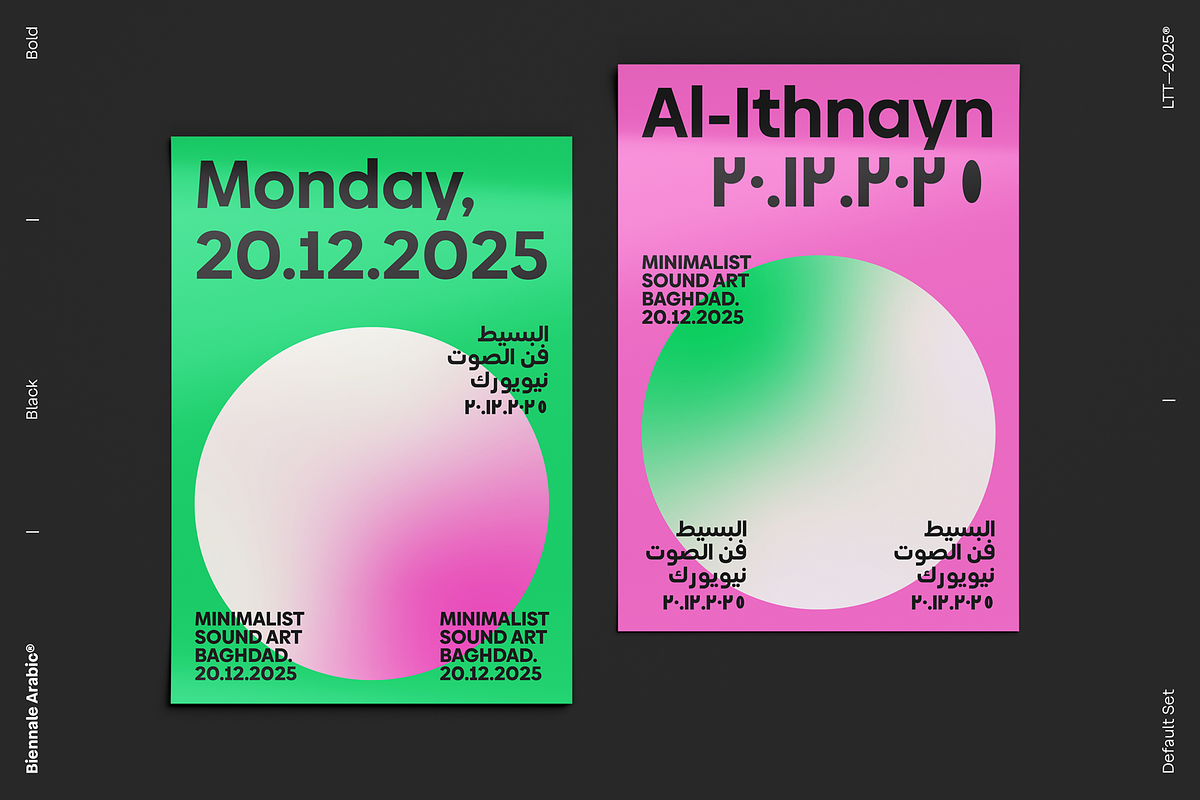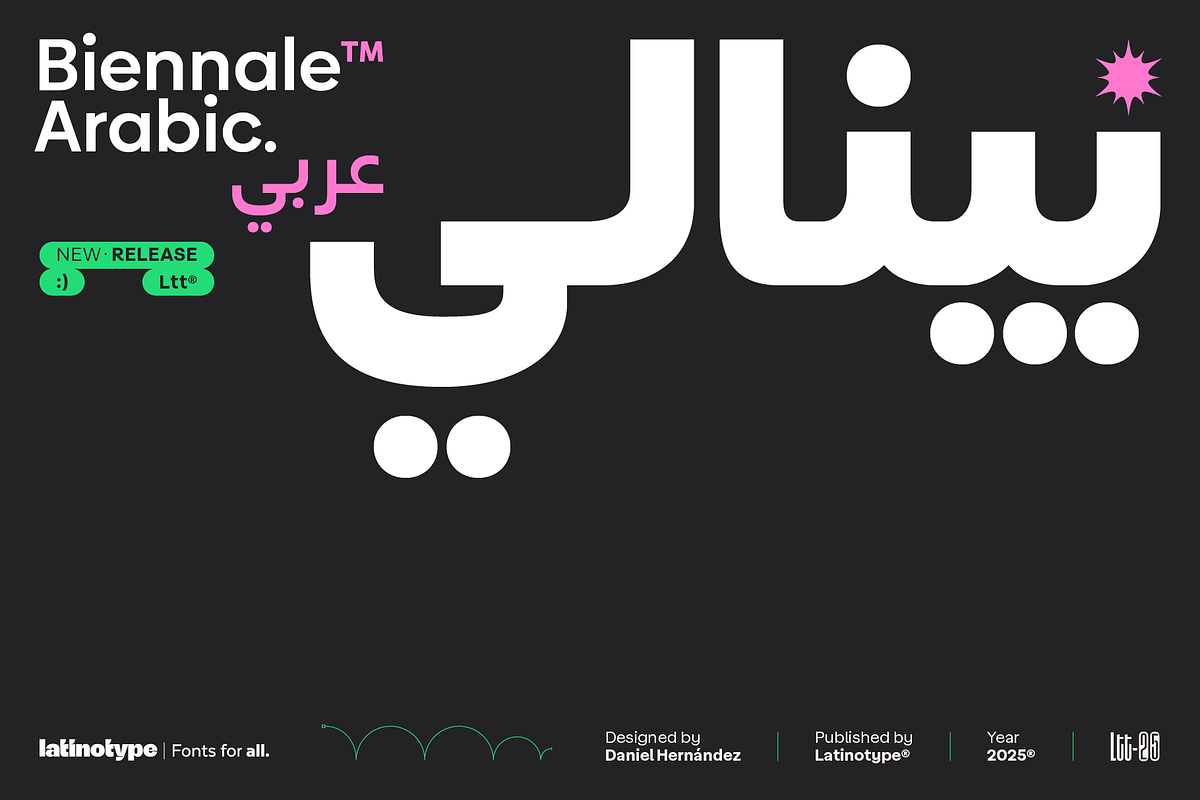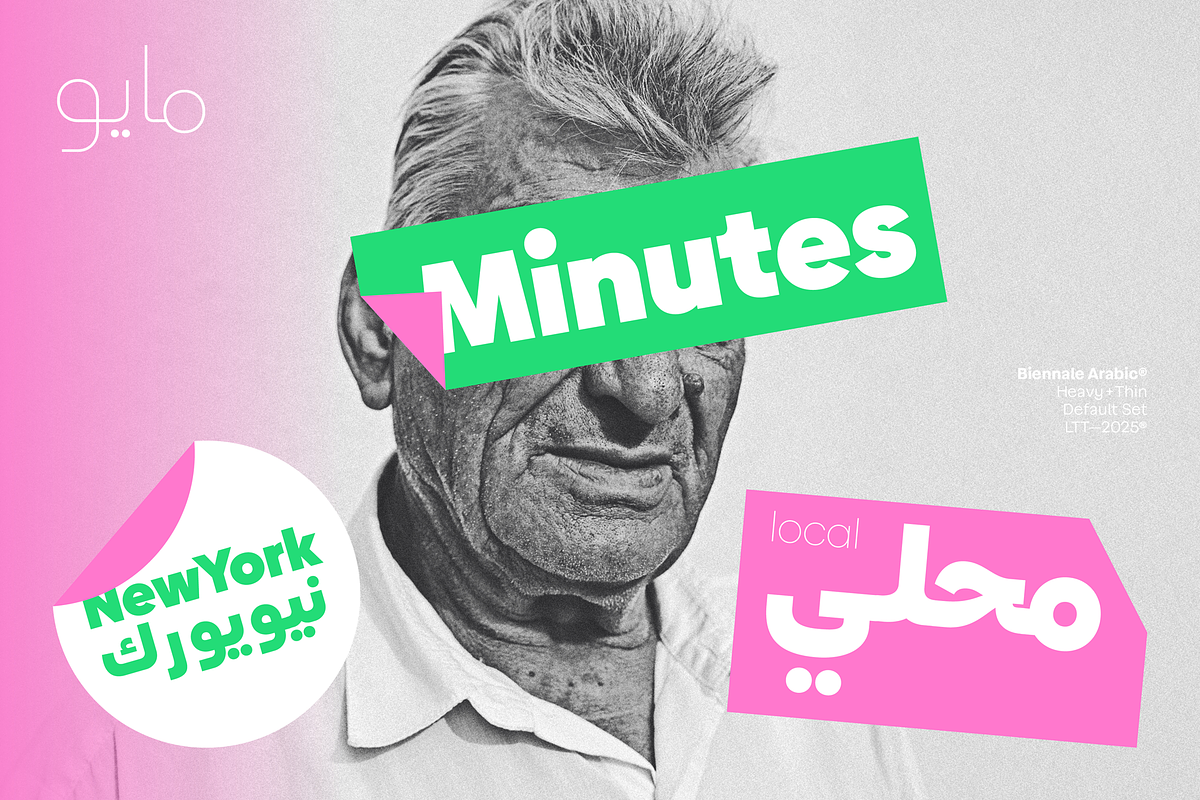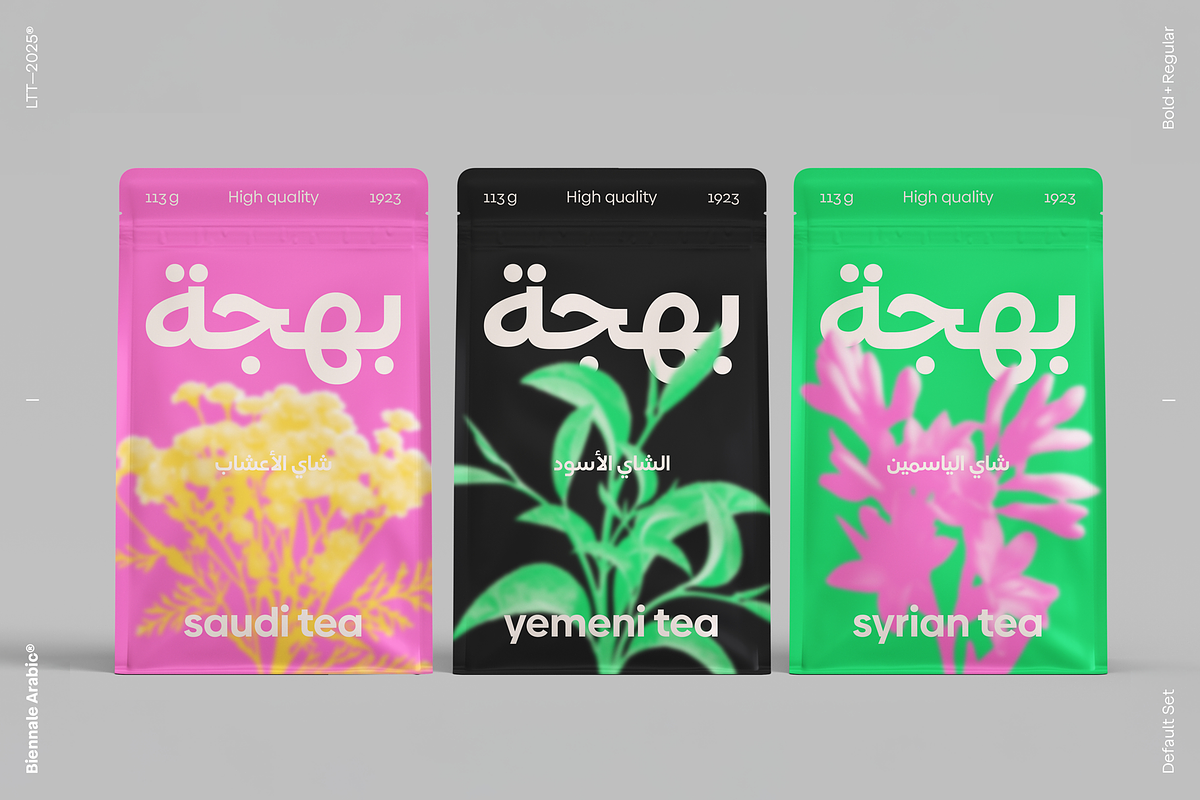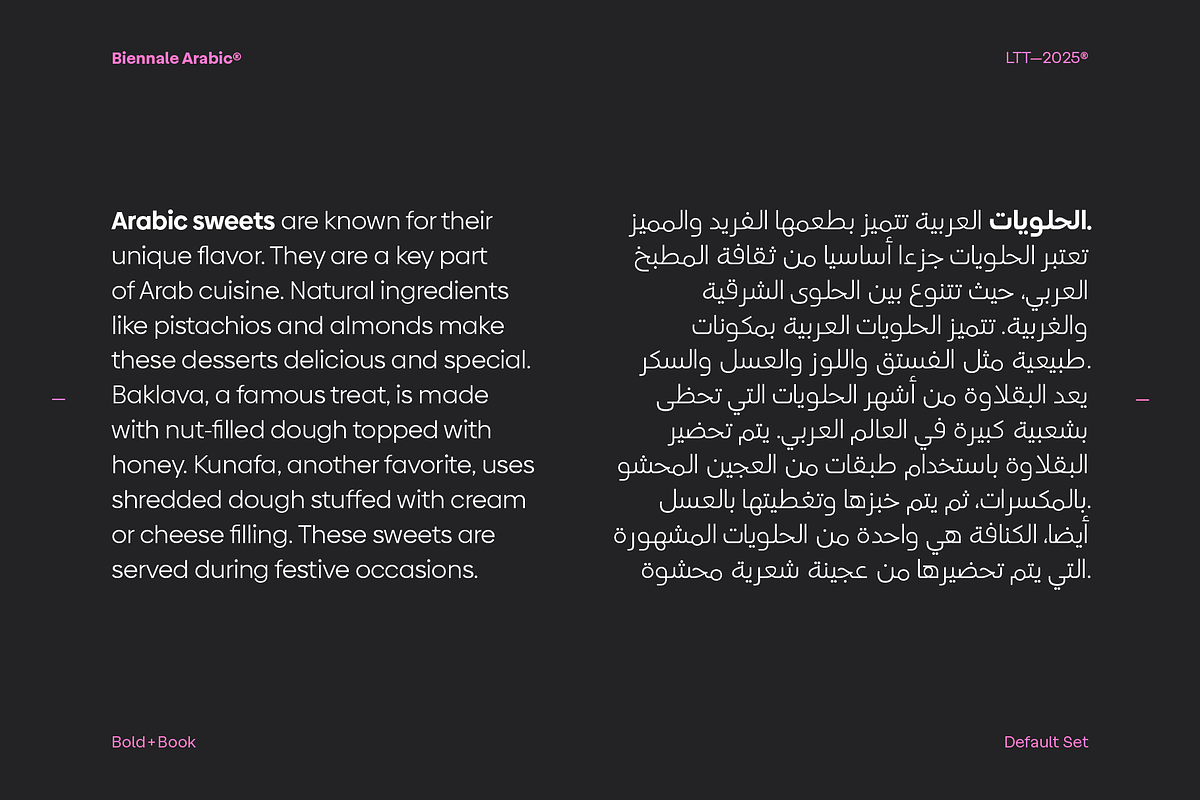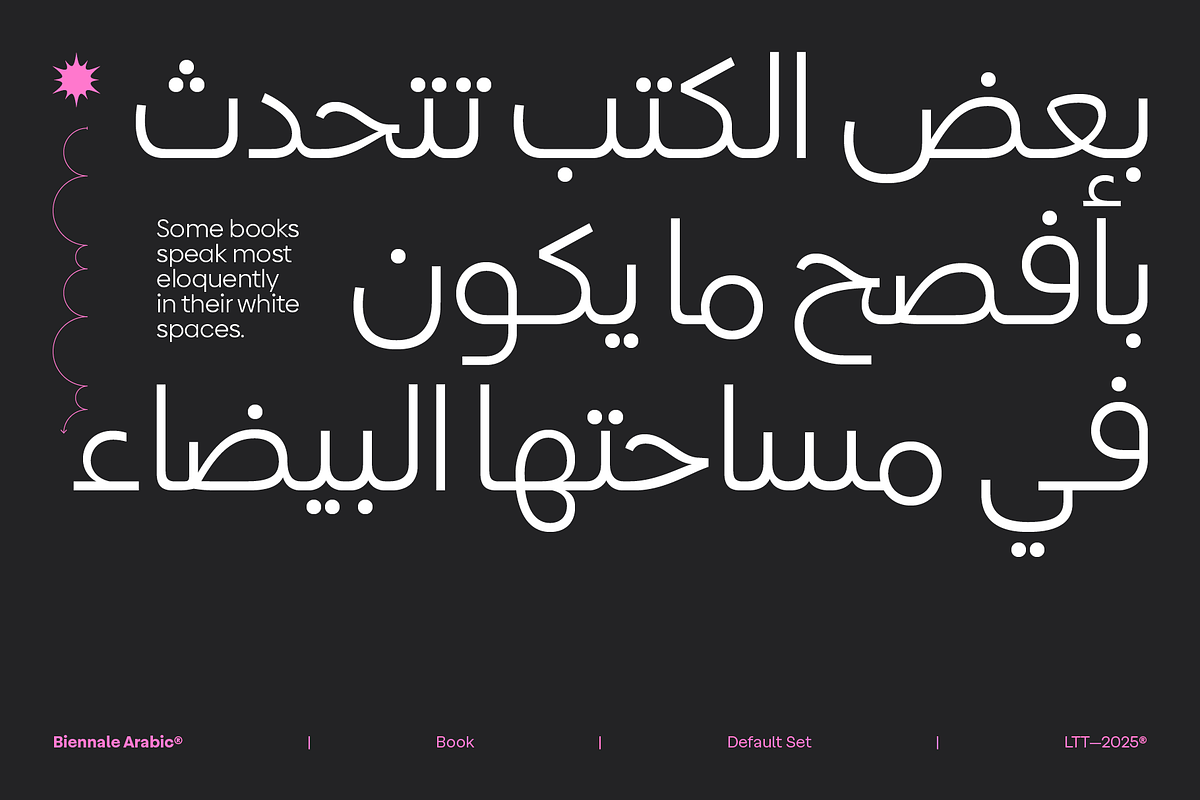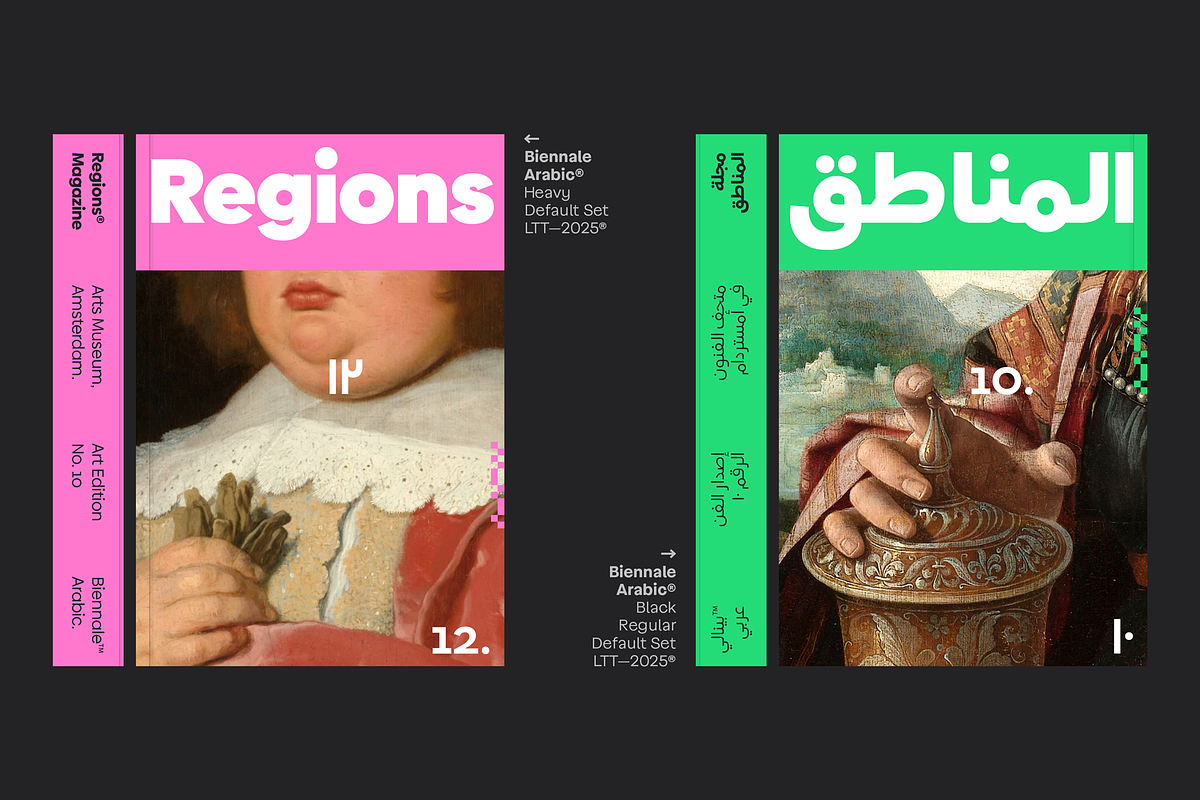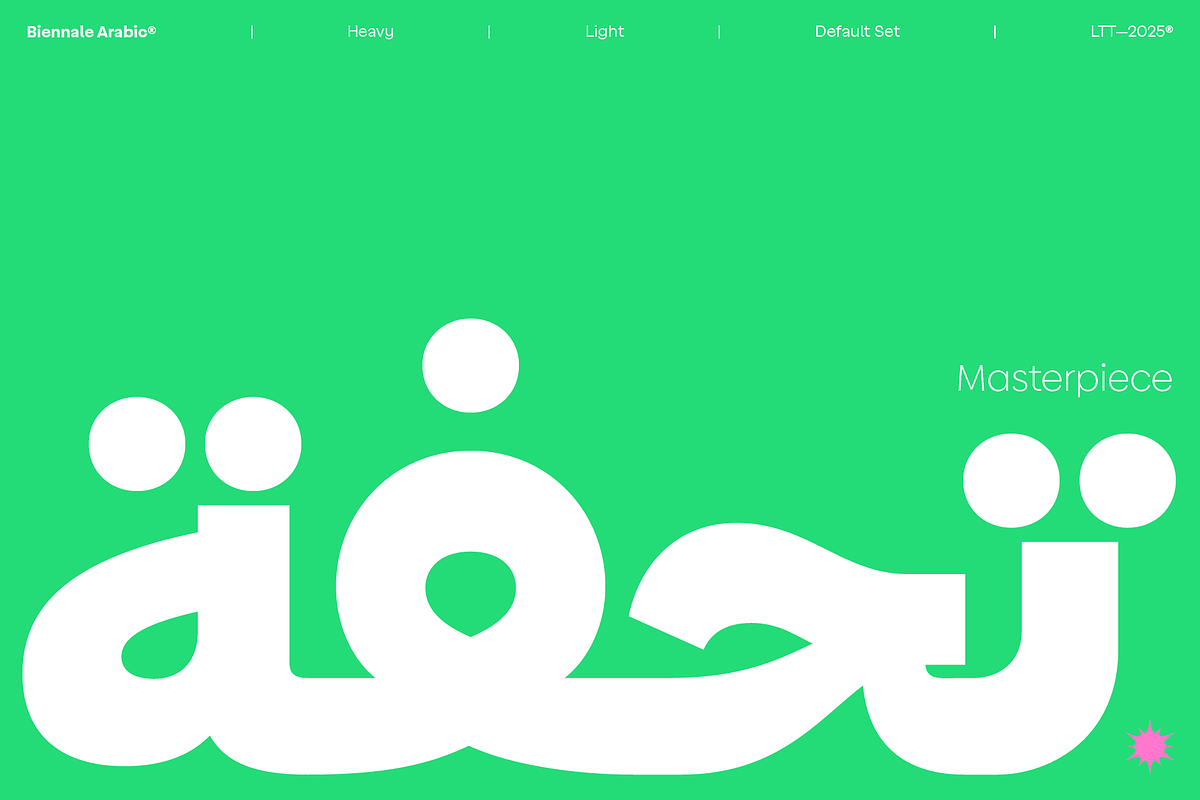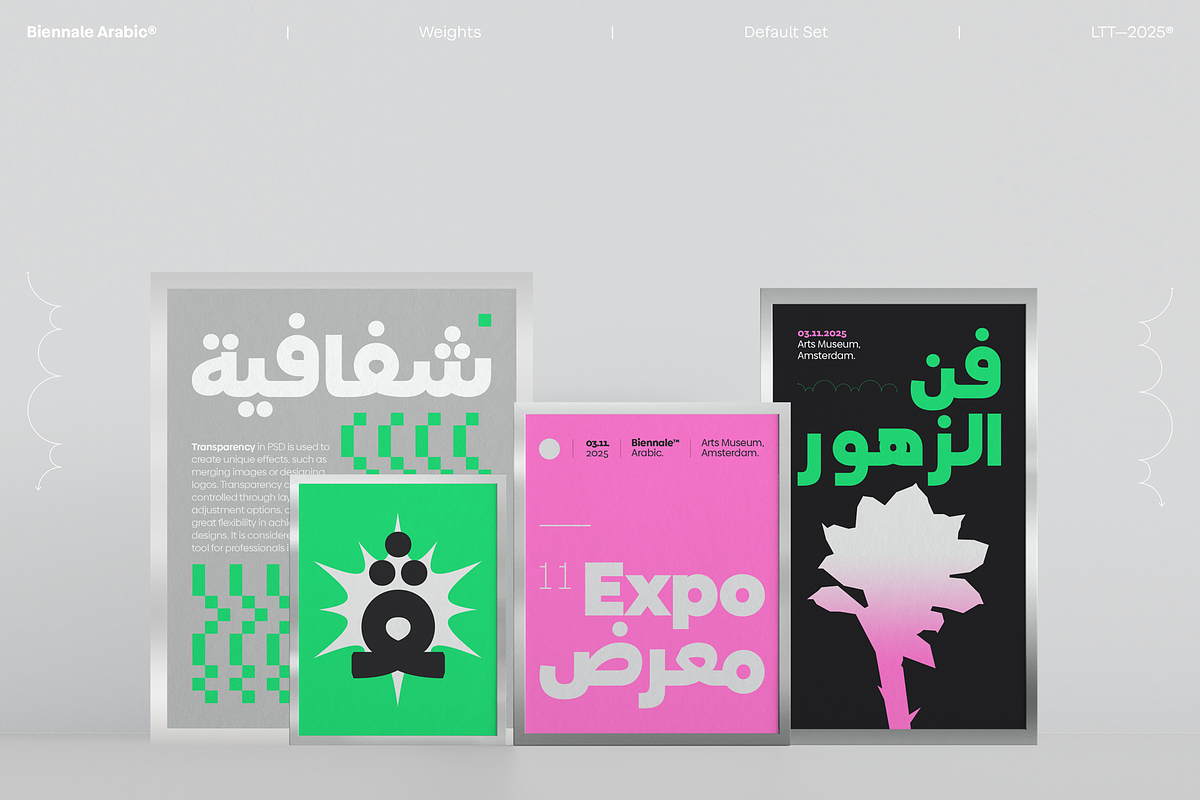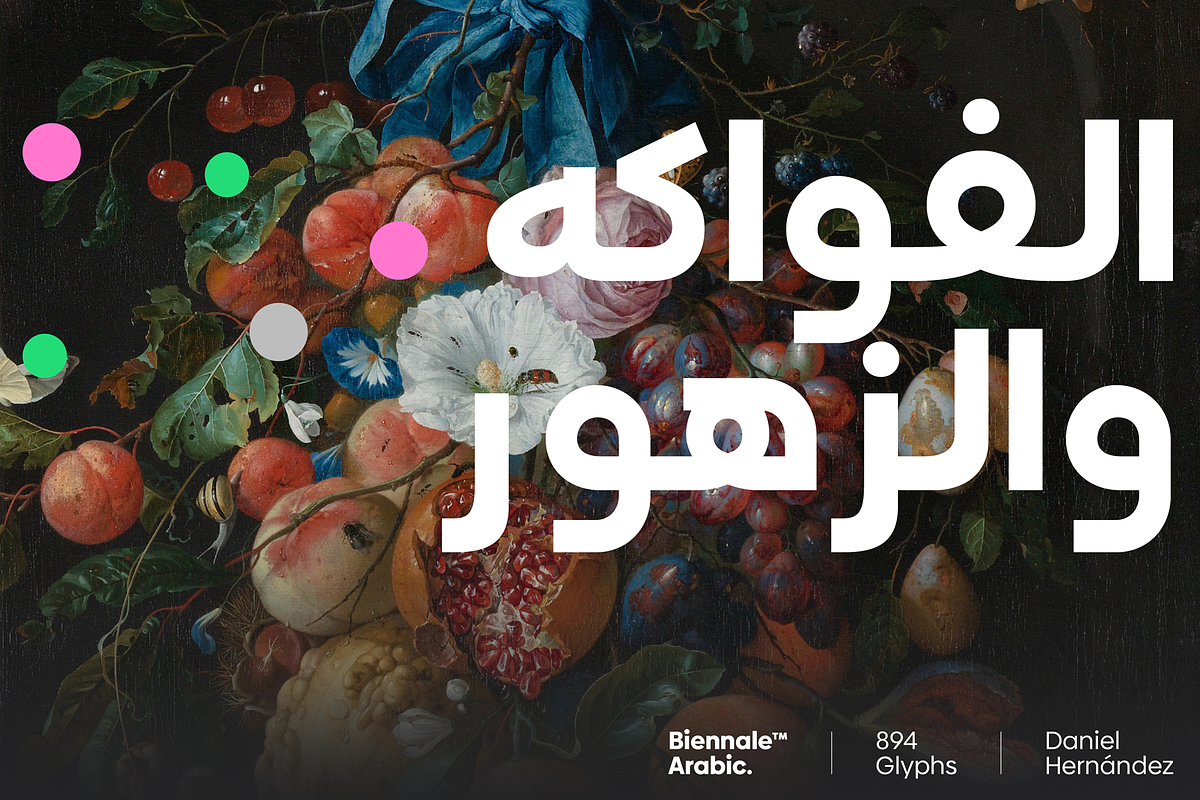
Biennale Arabic
Biennale expands into the Arabic alphabet while preserving its geometric and contemporary essence. Designed to balance Arabic calligraphy with impeccable legibility, its structure respects the fluidity of the language, ensuring seamless integration with the Latin version.
With 417 characters and support for over 200 languages, it is a versatile choice for branding, editorial, and digital design. Its design guarantees a cohesive visual identity in bilingual compositions, enhancing communication in multicultural contexts. Now, Biennale unites cultures through a global and harmonious typeface, perfect for modern and expressive projects.